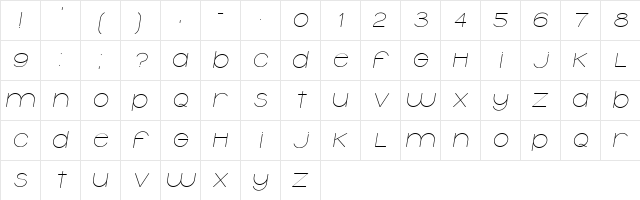
Typolino Italic
Design Context for Typolino Typeface
Typolino takes a measured approach to typography — its balanced proportions and neutral character make it a reliable workhorse for both digital and print work. The dynamic lean of this cut emphasises speed and emphasis in any layout.
Pro Tip: Use Typolino for emphasis, pull quotes, and subheadings where its slanted energy can add rhythm to the layout.